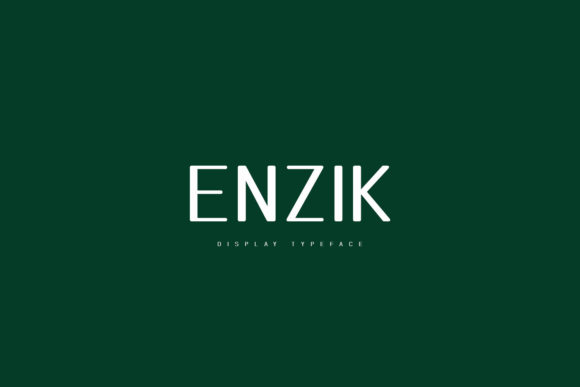
Introducing Enzik Font: The Ultimate Sans Serif for Modern Designs
In the world of typography, fonts play a crucial role in making or breaking a design. A perfect font can elevate your project from ordinary to extraordinary. If you’re a designer, craftsperson, or simply someone who appreciates beautiful typography, you’re in luck. Today, we’re excited to introduce you to Enzik Font, a cool, simple, and bold sans serif font that’s about to become your new favorite.
What is Enzik Font?
Enzik is a modern sans serif font that’s designed to make a statement. Its clean lines, simple shapes, and bold personality make it the perfect choice for a wide range of design projects. Whether you’re working on a website, business card, or any other project that requires a unique touch, Enzik Font is the ideal choice.
Key Features of Enzik Font
• Simple and Bold: Enzik Font boasts a bold and simple design that’s perfect for making a statement. Its clean lines and minimal ornamentation make it easy to read and understand.
• Sans Serif: As a sans serif font, Enzik is perfect for digital designs, such as websites and mobile apps, where readability is crucial.
• Cool and Modern: Enzik’s modern design makes it perfect for projects that require a fresh and contemporary look.
• Versatile: Enzik Font can be used for a wide range of projects, from web designs and business cards to posters, flyers, and more.
Why Choose Enzik Font?
So, why should you choose Enzik Font for your next project? Here are just a few reasons:
• Unique Touch: Enzik Font adds a unique touch to any design project, setting it apart from more traditional fonts.
• Easy to Read: Enzik’s clean lines and simple shapes make it easy to read, even at small sizes.
• Highly Versatile: Enzik Font can be used for a wide range of projects, from digital designs to print materials.
• Perfect for Branding: Enzik’s bold and modern design makes it perfect for branding projects, such as logos and business cards.
Who Can Benefit from Enzik Font?
Enzik Font is perfect for a wide range of designers and craftspersons, including:
• Graphic Designers: Graphic designers can use Enzik Font for a wide range of projects, from logos and business cards to posters and flyers.
• Web Designers: Web designers can use Enzik Font to add a unique touch to their website designs.
• Crafters: Crafters can use Enzik Font for a variety of projects, from handmade cards to DIY signs.
• Marketing Professionals: Marketing professionals can use Enzik Font for branding projects, such as logos and marketing materials.
• Experiment with Sizes: Enzik Font looks great at a wide range of sizes, from small to large.
• Play with Colors: Enzik Font can be used with a wide range of colors, from bold and bright to subtle and muted.
• Pair it with Other Fonts: Enzik Font can be paired with other fonts to create a unique and interesting design.
In conclusion, Enzik Font is a cool, simple, and bold sans serif font that’s perfect for modern designs. Its clean lines, simple shapes, and bold personality make it the ideal choice for a wide range of projects, from web designs and business cards to posters and flyers. Whether you’re a designer, craftsperson, or simply someone who appreciates beautiful typography, Enzik Font is a great addition to your font library.